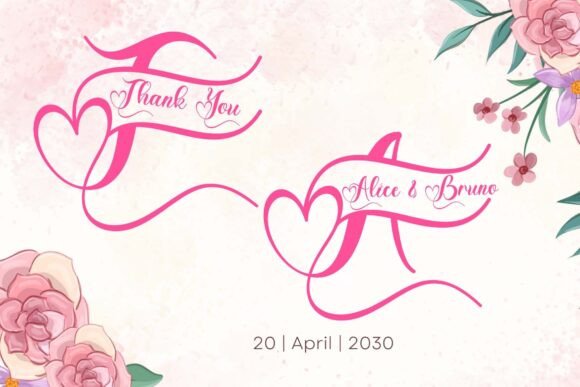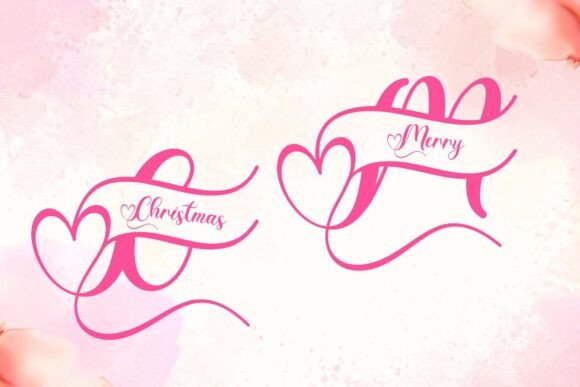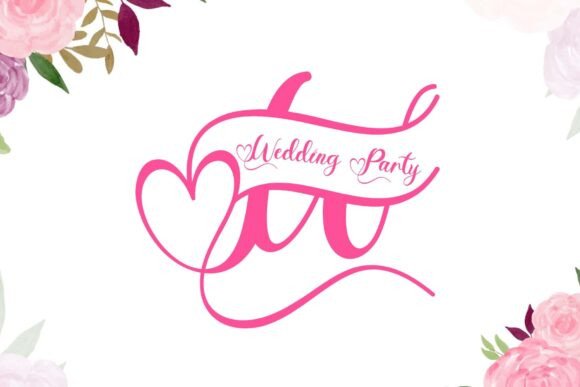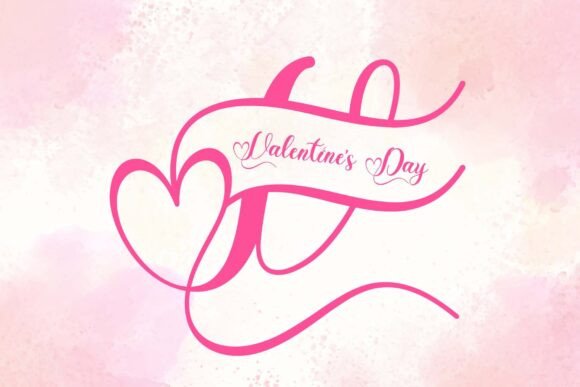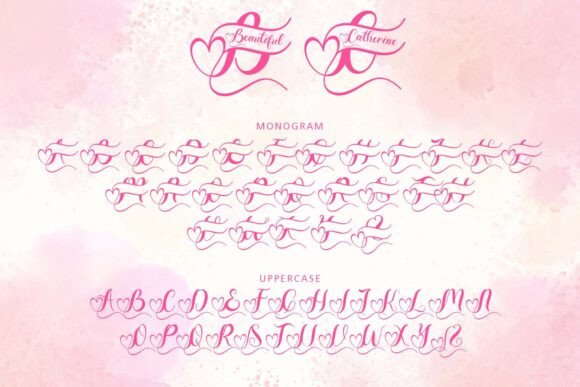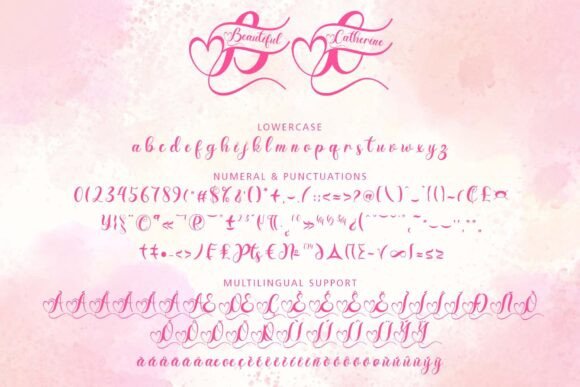
The Perfect Touch of Elegance: Beautiful Catherine Monogram Font
As a designer, there’s nothing quite like the thrill of creating something beautiful and meaningful for a special occasion. Whether it’s a wedding, a birthday, or a holiday celebration, the right font can make all the difference in setting the tone and capturing the essence of the moment. I still remember the excitement I felt when I stumbled upon the Beautiful Catherine Monogram Font – its elegant, handwritten style perfectly captured the romance and whimsy I was looking for.
With its extensive range of monograms, lowercase and uppercase letters, numbers, punctuation, and multilingual support, the Beautiful Catherine Monogram Font is a versatile and valuable tool for designers. Whether you’re creating invitations, banners, or branding materials, this font is sure to add a touch of sophistication and personality to your designs.
- Unique Characteristics: The Beautiful Catherine Monogram Font features a beautiful, elegant, and intricate design, making it perfect for wedding invitations, stationery, and other special occasion designs.
Designer Review: Beautiful Catherine Monogram Font
The Beautiful Catherine Monogram Font is a stunning addition to any design project. ✨ Its elegant and intricate design makes it perfect for creating high-end and luxurious brand identities. The font’s versatility allows it to be used in various contexts, from wedding invitations to luxury product packaging.
One of the standout features of this font is its scalability. ✨ Whether you’re using it for small text or large headings, the Beautiful Catherine Monogram Font maintains its beauty and legibility. The font’s intricate details are also well-crafted, making it easy to read and understand.
- ⚠️ Limited character set: The font only includes uppercase and lowercase letters, with no additional characters or symbols.
- ⚠️ Not suitable for body text: The font’s intricate design makes it difficult to read in large blocks of text, making it better suited for headings and titles.
Overall, the Beautiful Catherine Monogram Font is a beautiful and elegant addition to any design project. While it may have some limitations, its stunning design and versatility make it a great choice for creating high-end and luxurious brand identities.
To get the most out of the Beautiful Catherine Monogram Font, try pairing it with other elegant fonts to create a sophisticated look. Experiment with different font sizes and colors to add depth and visual interest to your design.
The Beautiful Catherine Monogram Font is ideal for wedding invitations, anniversary cards, and other special occasions where a touch of elegance is needed. It can also be used for branding and marketing materials, such as business cards and letterheads, to add a touch of sophistication and refinement.
What is the character set of the Beautiful Catherine Monogram Font?
The Beautiful Catherine Monogram Font includes a standard character set, including uppercase and lowercase letters, numbers, punctuation marks, and special characters. The font also includes a range of ligatures and alternates to enhance its aesthetic appeal. However, please note that the font does not include support for non-English languages or special characters beyond the standard ASCII character set.